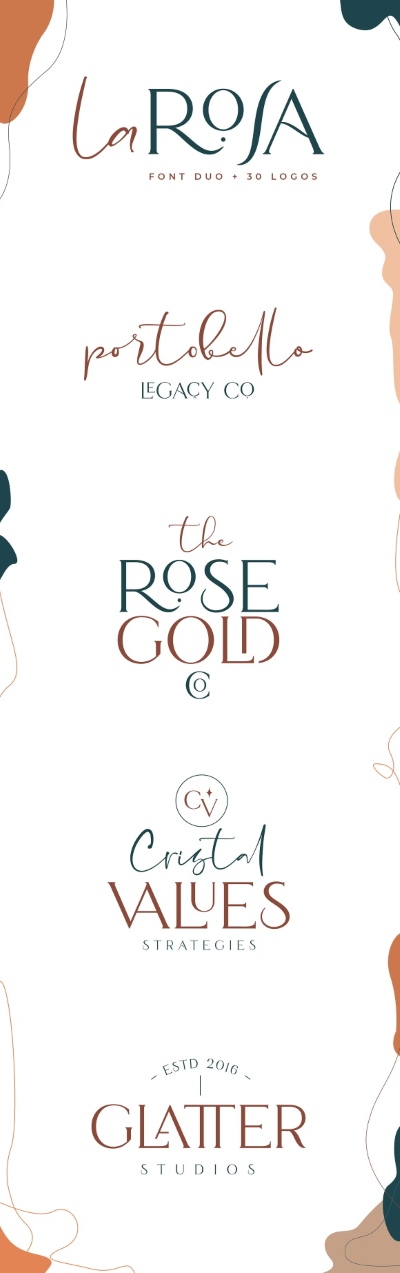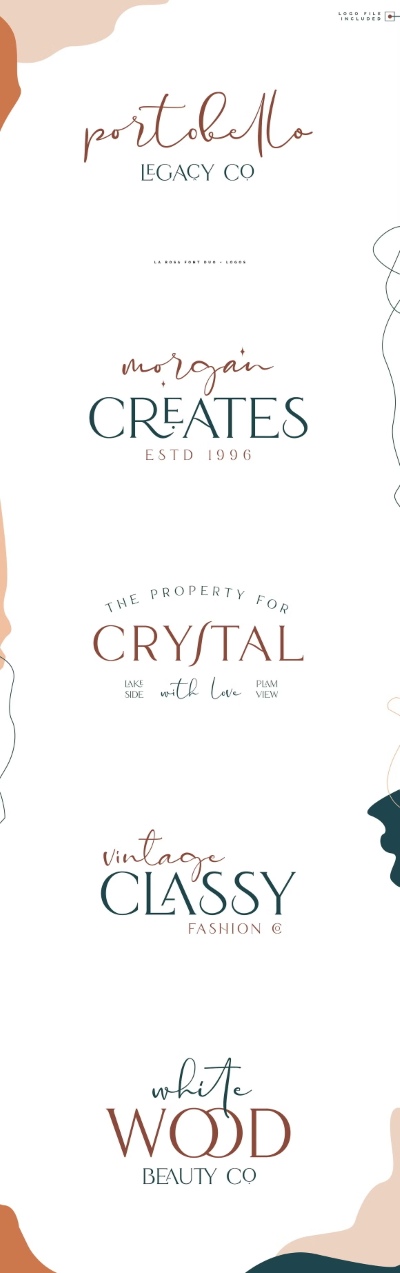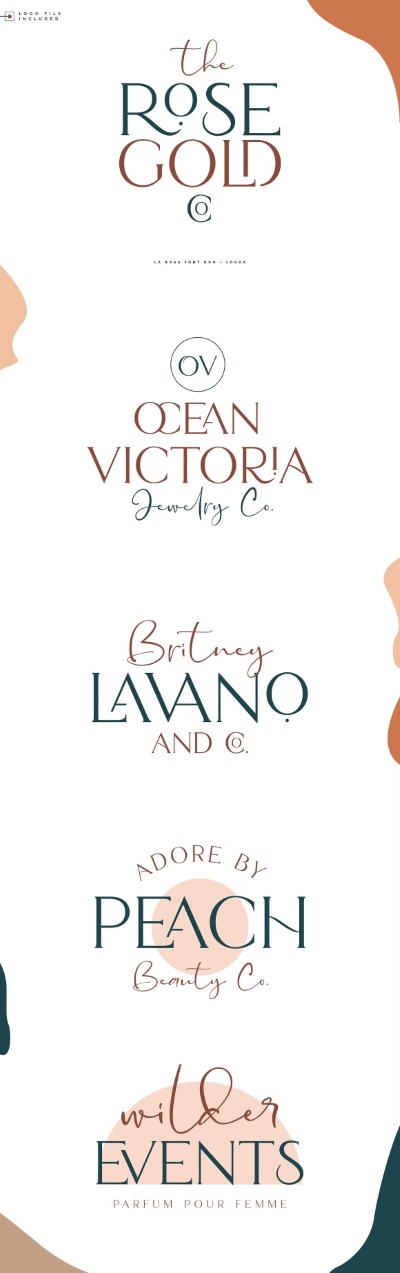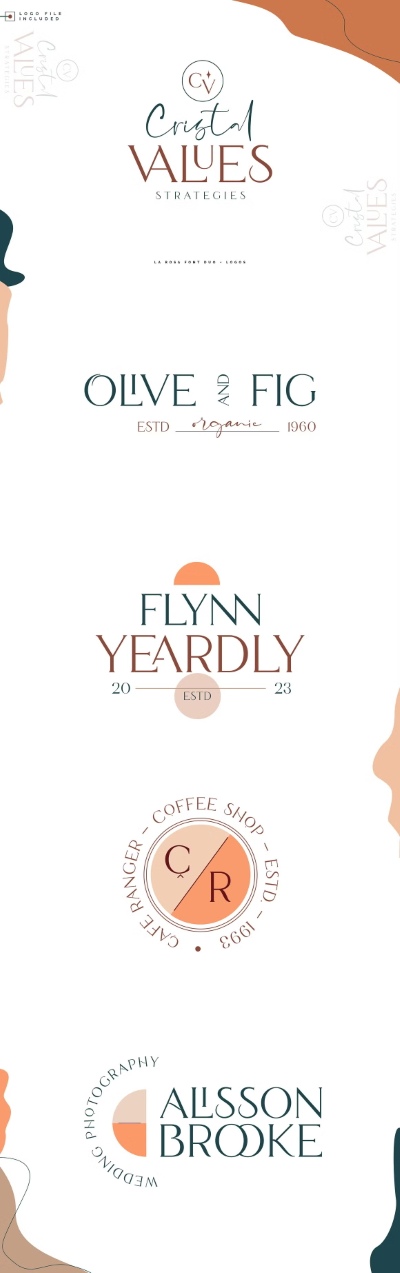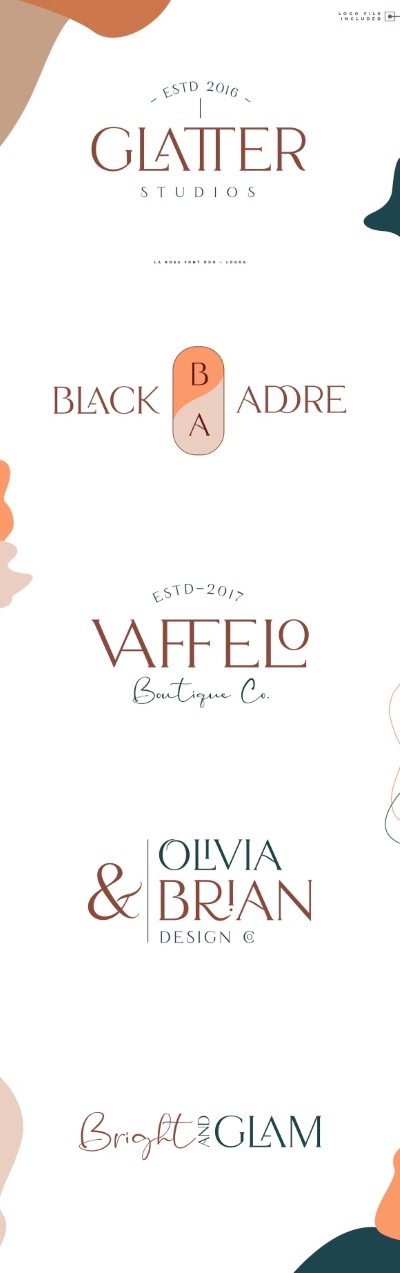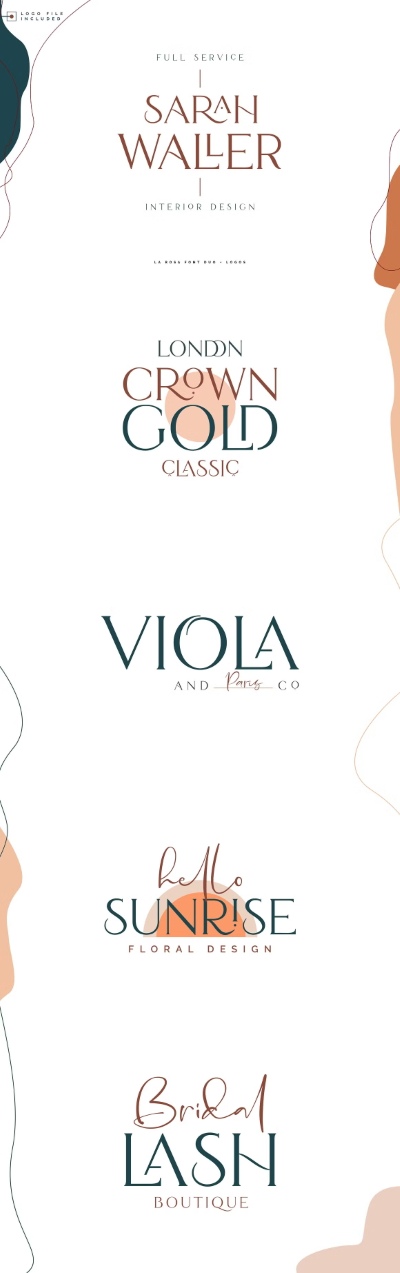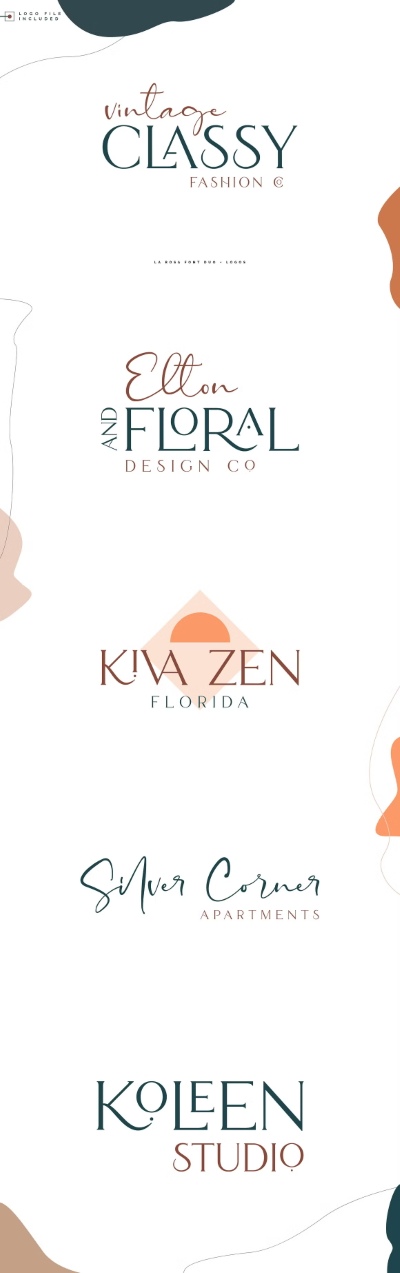
- La Rosa Font Duo is a ligature font pair with 30 amazing chic logo templates. With this open-type font duo, you can explore your creativity in an unlimited way. To recreate your brand all you need is mix and match from the La Rosa font duo. This font duo is full of stylish ligatures, so that your writing with La Rosa can stand out. Oh, the darling font has 30 free logos and those are fully editable with Adobe Photoshop or Adobe Illustrator (PSD, Ai, and EPS).